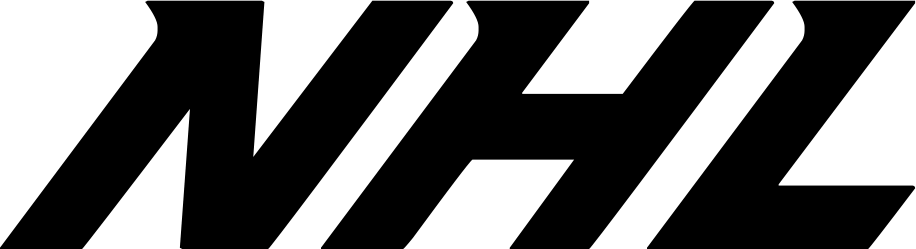
NHL Font
Interested in having a uniquely strong, bold typography? Try NHL and its italic glyphic style characters! This futuristic techno font gives your design a positive mood, with a modern, sociable, and high-tech look, which…
Interested in having a uniquely strong, bold typography? Try NHL and its italic glyphic style characters! This futuristic techno font gives your design a positive mood, with a modern, sociable, and high-tech look, which is marvelous.
Despite containing uppercase letters, NHL also provides dingbats as symbols for achieving your amazing typography while leaving out lowercase letters and numbers. A few common places to utilize this font would be games, movies, posters, banners, headings, apps, and almost anywhere you desire.